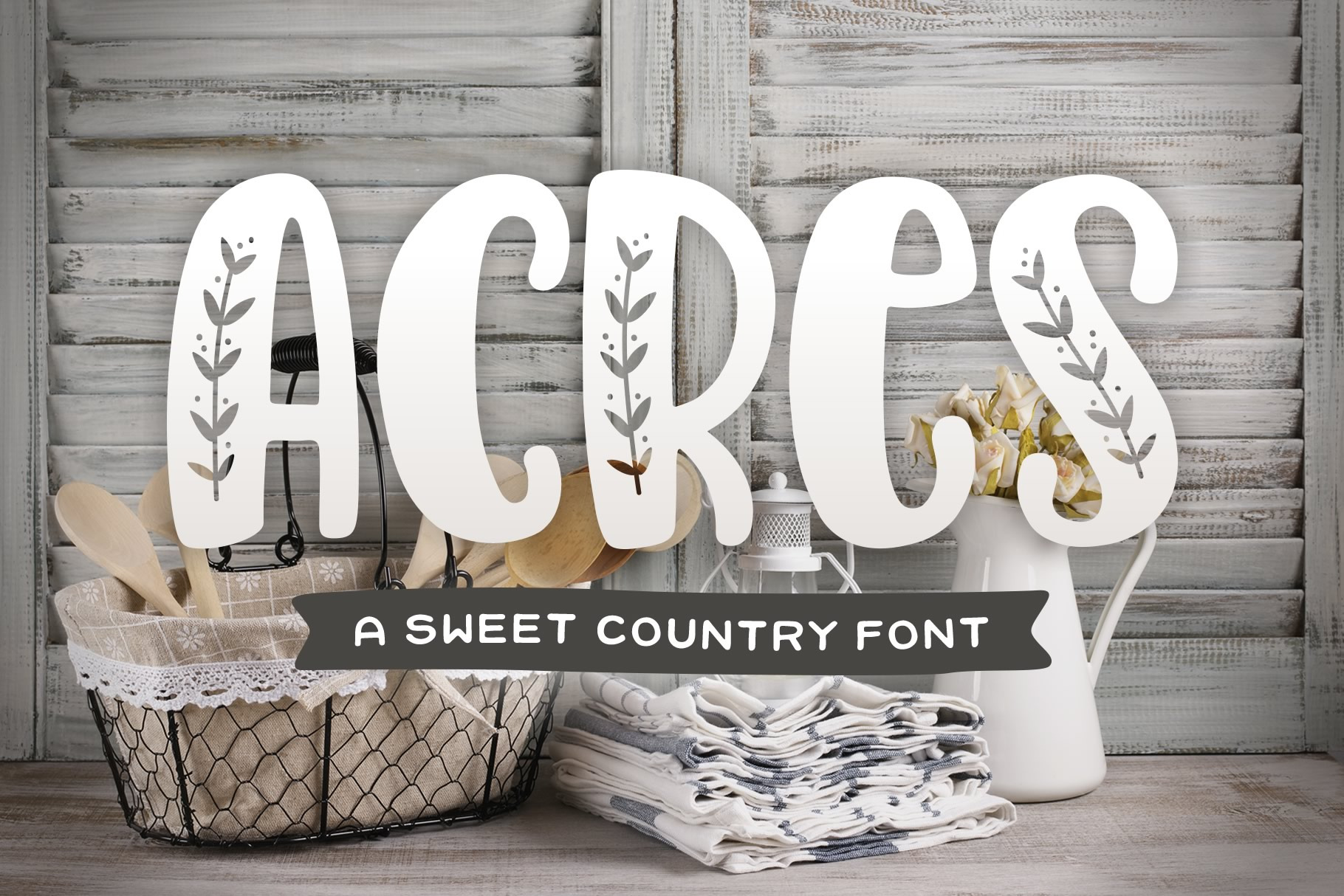
Acres Font
Acres is a bold, condensed font that features a sweet country-inspired design. It can give your designs a festive holiday pop or a casual farmhouse touch.